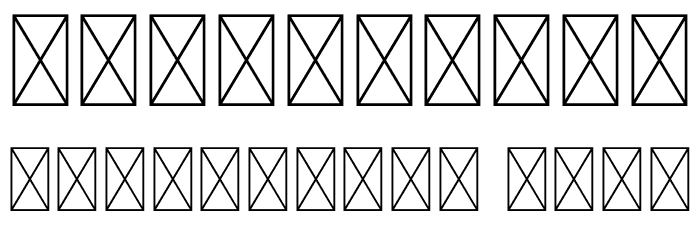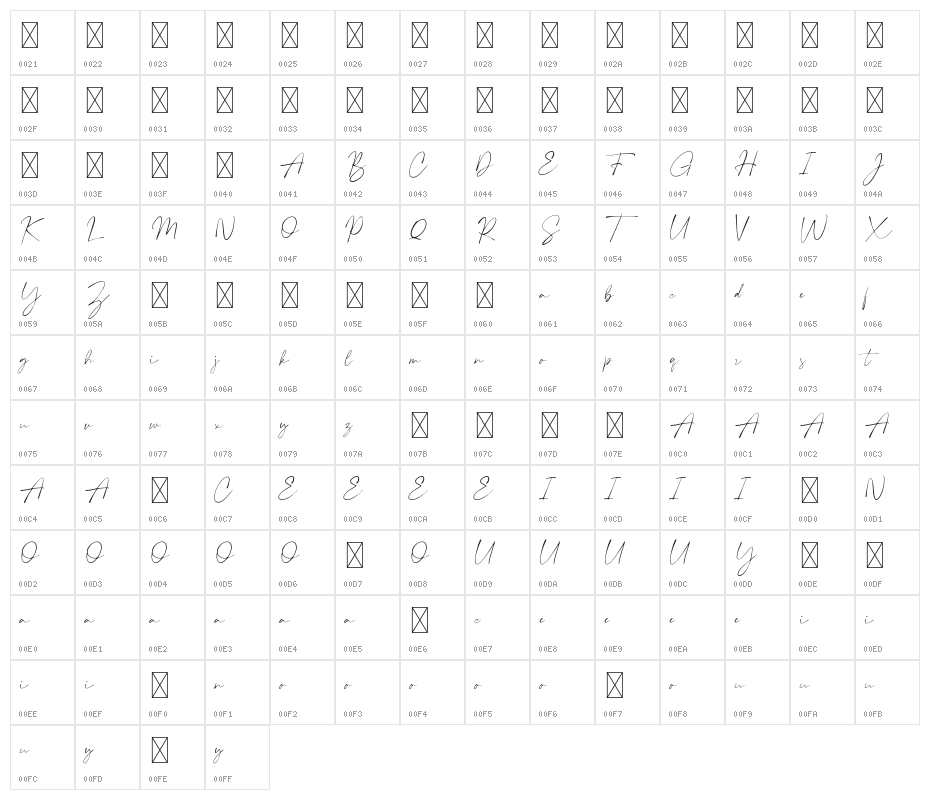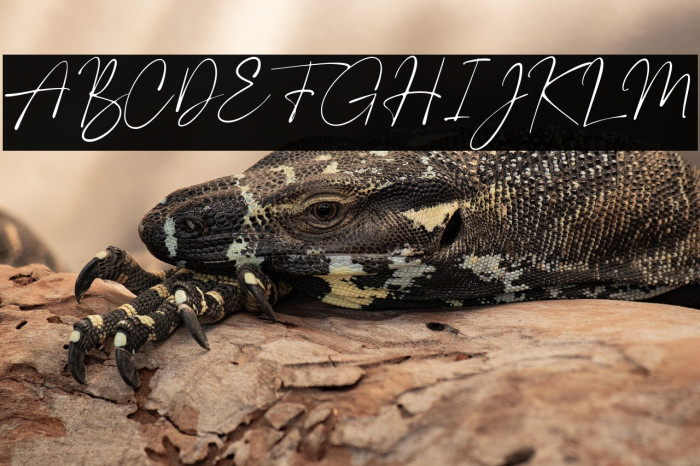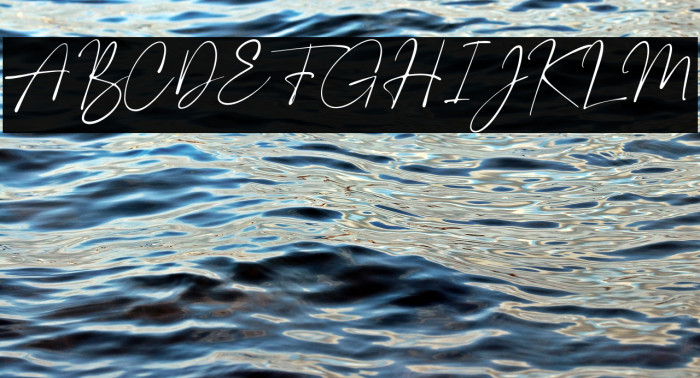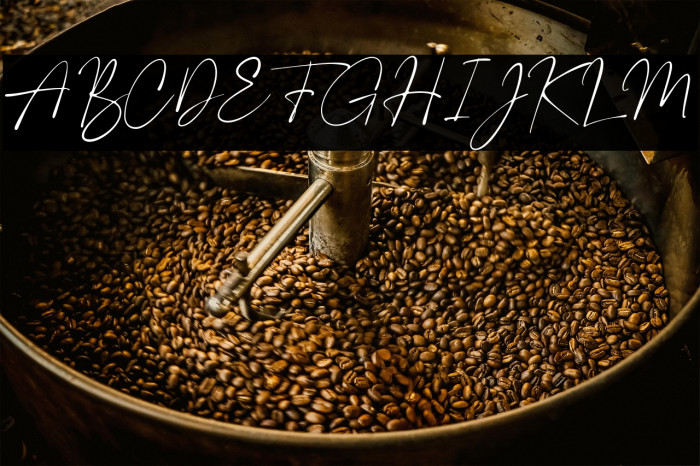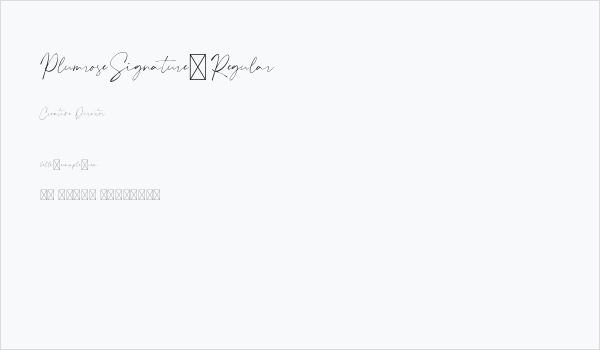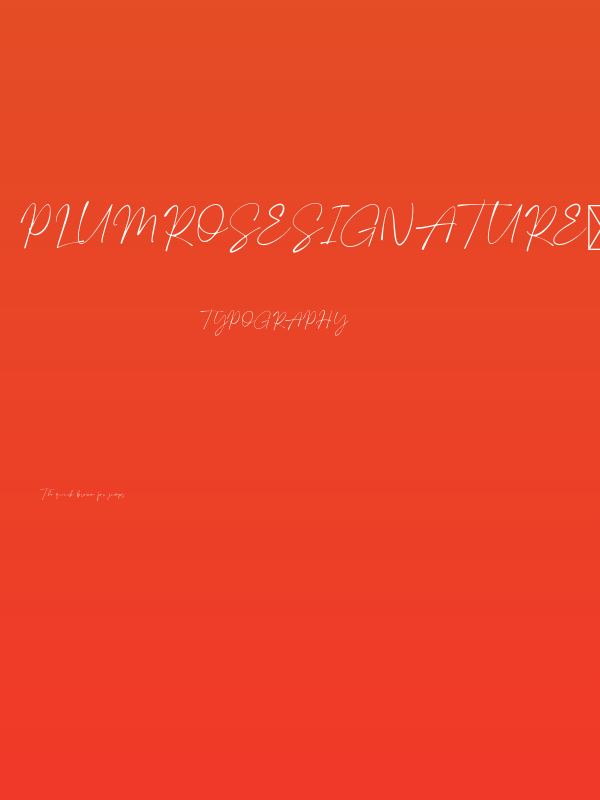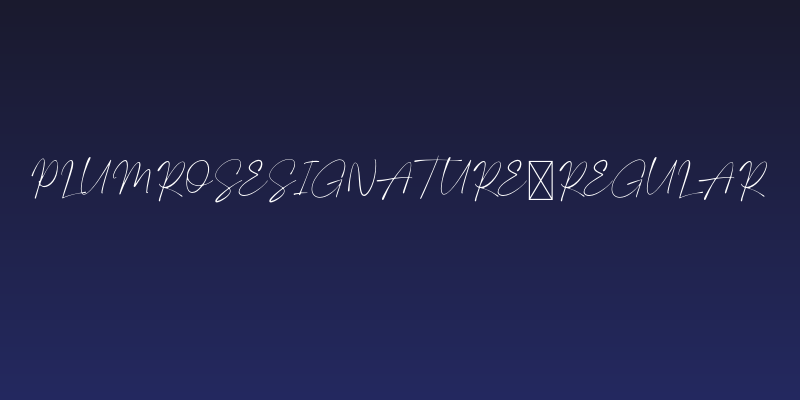
PlumroseSignature-Regular Font
PlumroseSignature-Regular Description
This font features an elegant and flowing script style, characterized by its smooth, cursive letterforms that mimic the fluidity of handwriting. The uppercase letters are slightly more structured, providing a nice contrast to the more freeform lowercase letters. The strokes are thin and delicate, giving the font a light and airy feel. The overall design is sophisticated and modern, making it suitable for projects that require a touch of elegance and personal flair. The font's graceful curves and loops add a sense of movement and dynamism, while maintaining readability.
| Use Case | Logos, Invitations, Personal branding |
| Proposed Projects | Ideal for wedding invitations, personal branding, greeting cards, and elegant packaging designs. |